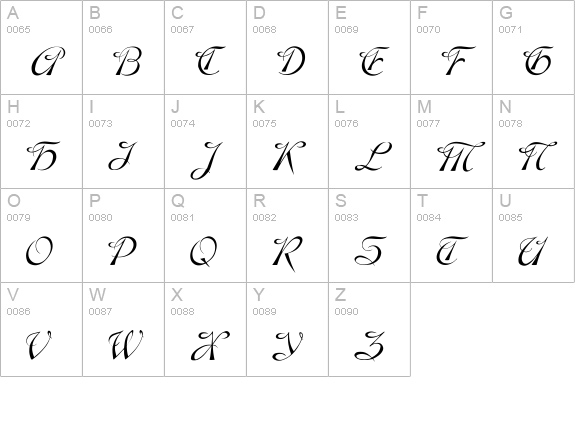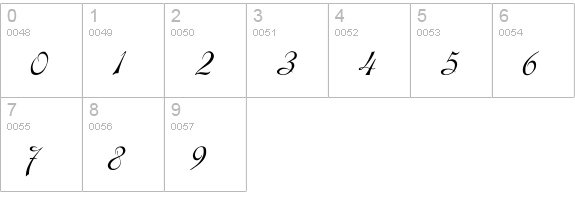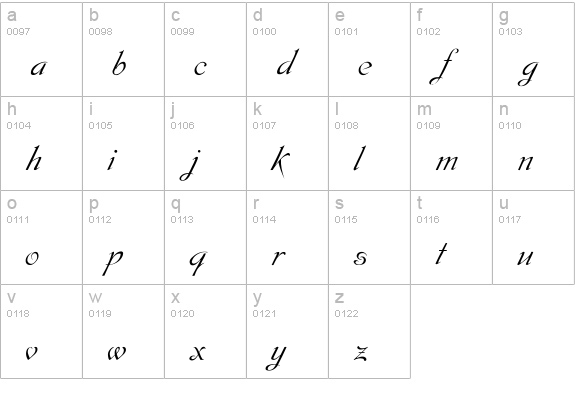
SCRIPT 9 Font Details
SCRIPT 9 is an exquisite and elegant font that effortlessly captures the essence of classical calligraphy. With its beautifully flowing lines and intricate details, this font adds a touch of sophistication to any project. Whether used for invitations, logos, or branding materials, SCRIPT 9 exudes a timeless charm that is sure to captivate and enchant. What sets SCRIPT 9 apart is not only its stunning design but also its accessibility. This font is freely available to download at FontsMarket.com, making it a perfect choice for those seeking high-quality typography without breaking the bank. With just a few clicks, you can instantly elevate your designs and bring them to life with the grace and beauty of SCRIPT 9. No matter the occasion or project, SCRIPT 9 is versatile enough to adapt to any creative vision. Its smooth curves and graceful strokes lend a sense of elegance and sophistication, while still maintaining readability and legibility. Whether used for formal invitations, wedding stationery, or even personal correspondence, this font is sure to leave a lasting impression on anyone who encounters it. In addition to its aesthetic appeal, SCRIPT 9 also offers a wide range of language support, ensuring that it can be used by designers and typographers from all corners of the globe. Its versatility extends beyond just print media, as it seamlessly transitions into digital platforms, making it perfect for web design, social media graphics, and more. Experience the beauty and versatility of SCRIPT 9 for yourself. With its stunning design, affordability, and ease of accessibility, this font is a must-have addition to any designer's toolkit. Download it for free today at FontsMarket.com and unlock a world of possibilities for your creative endeavors.